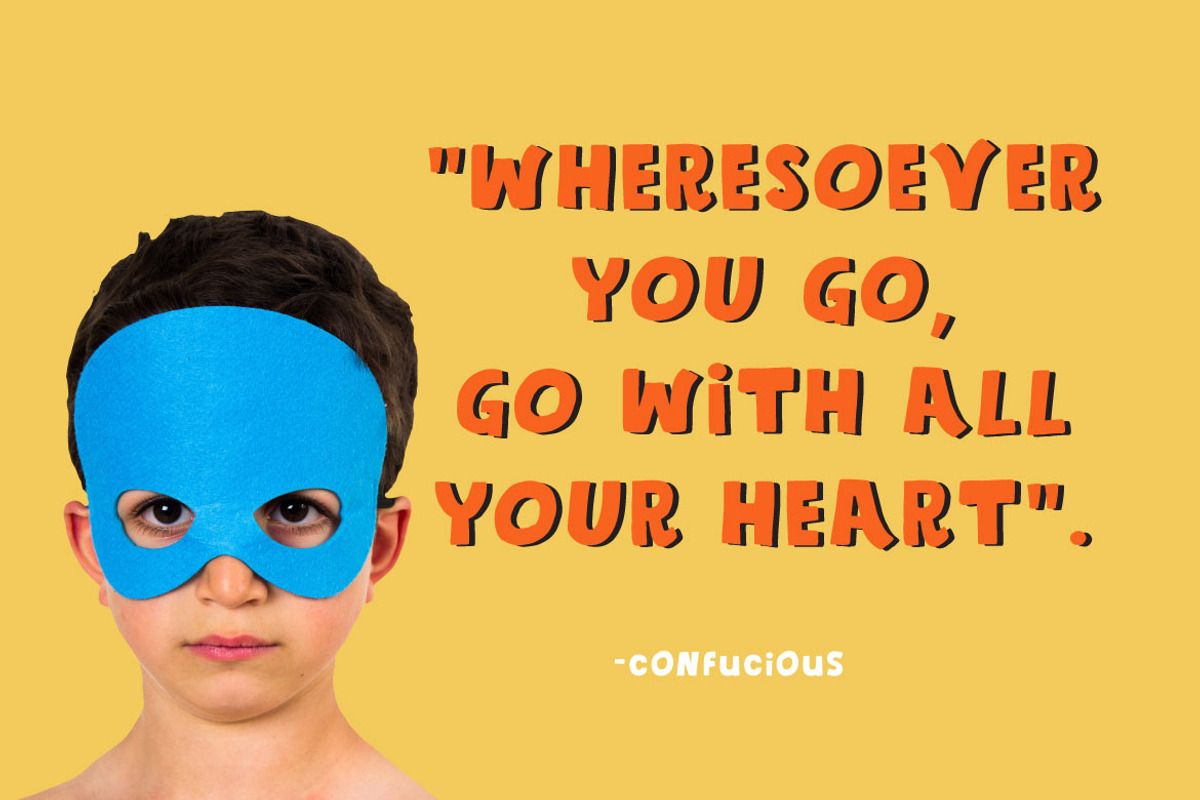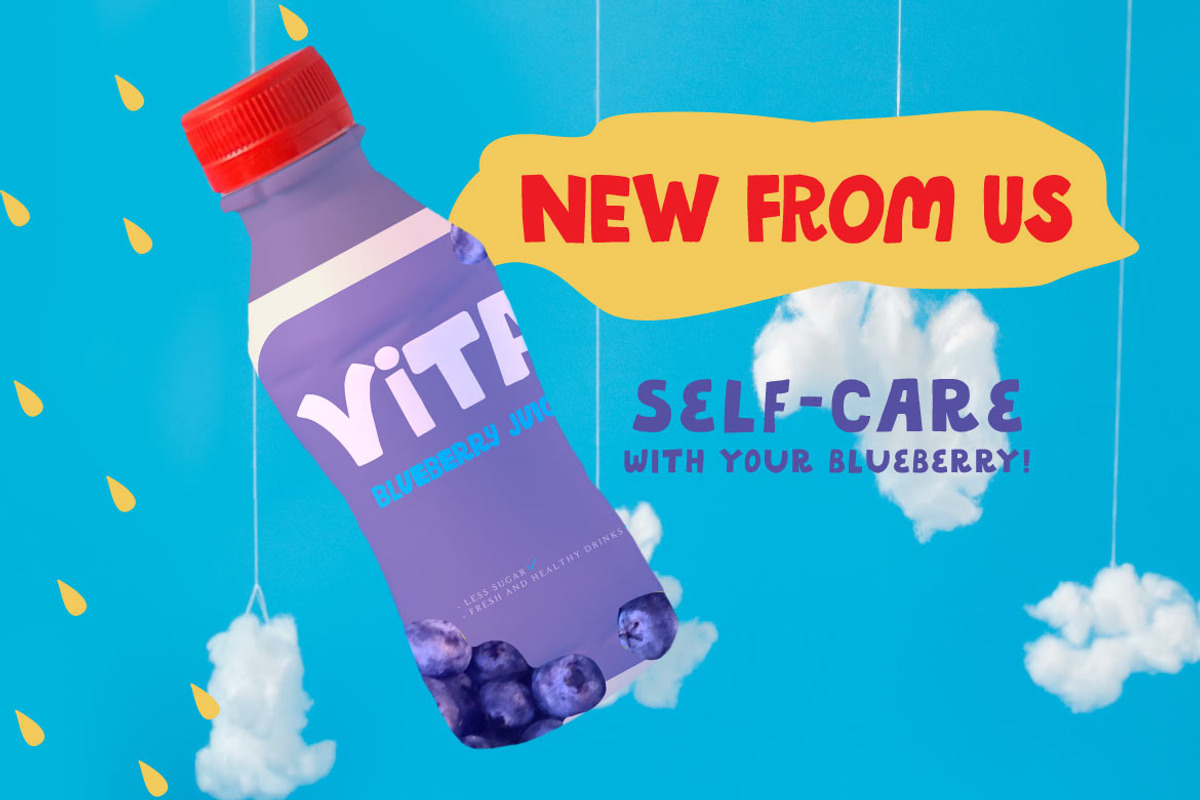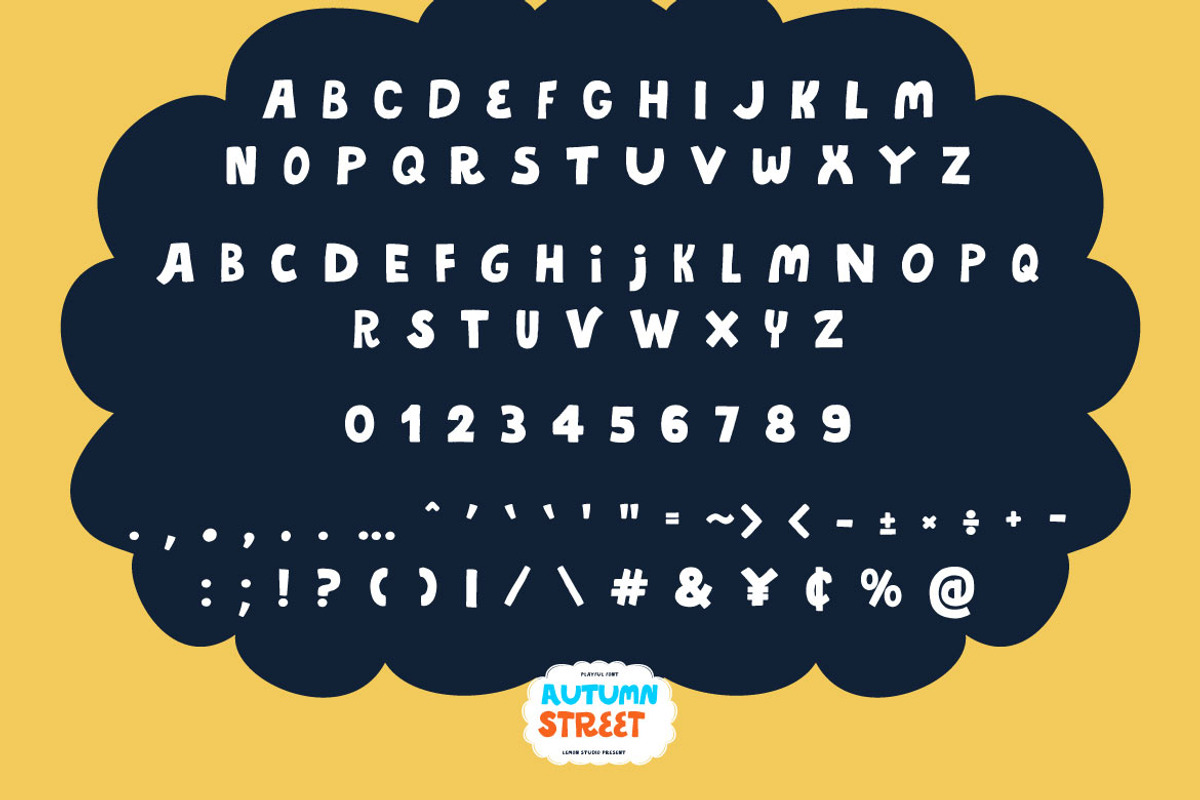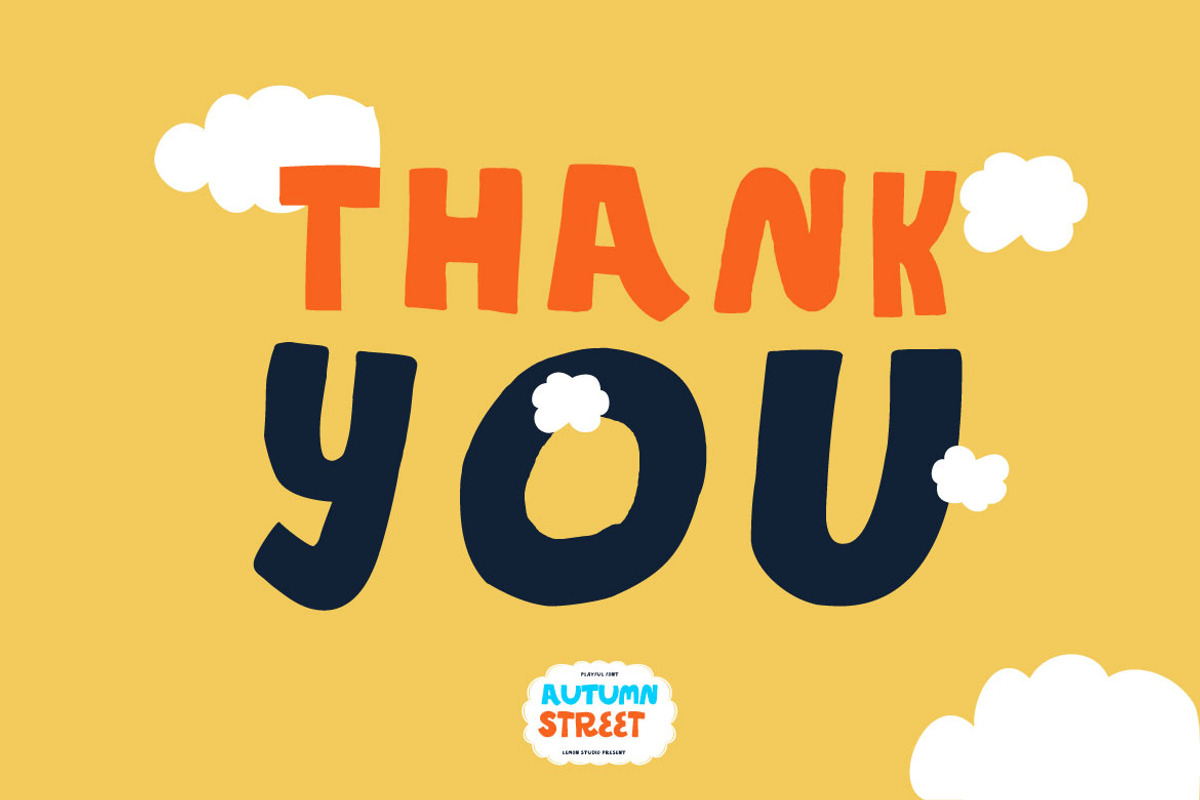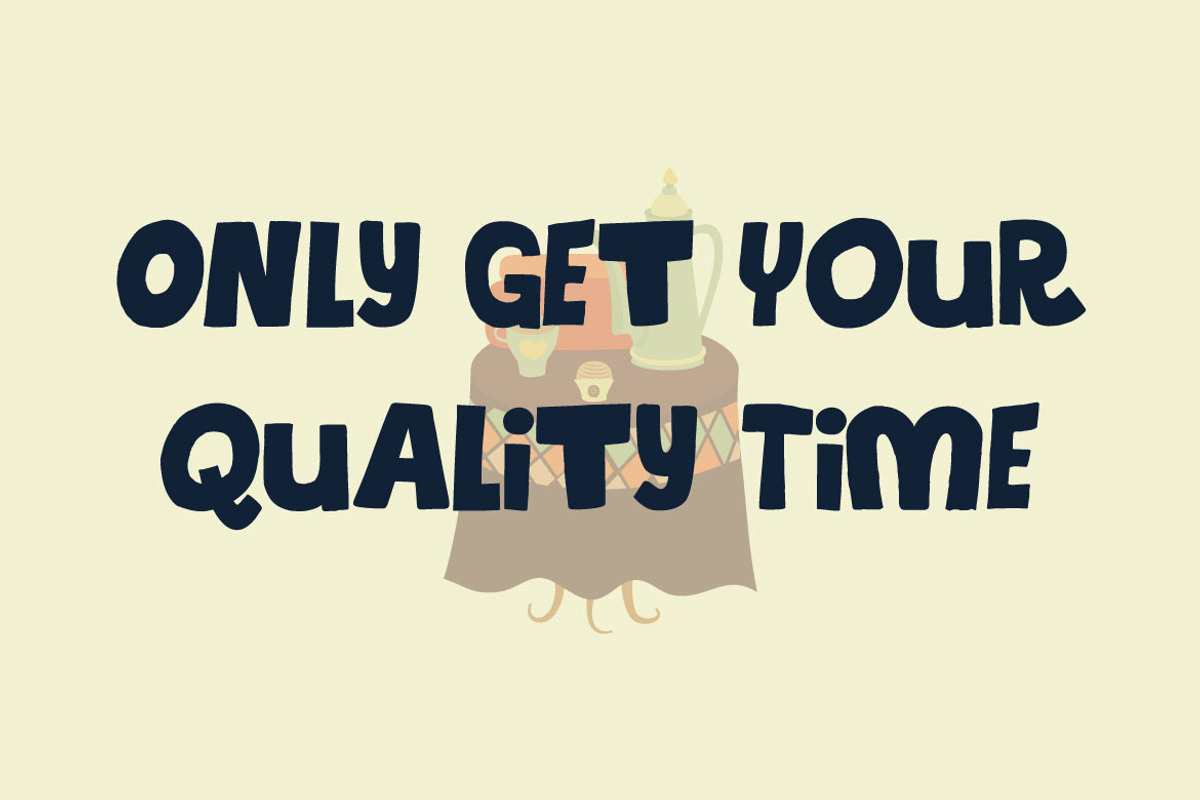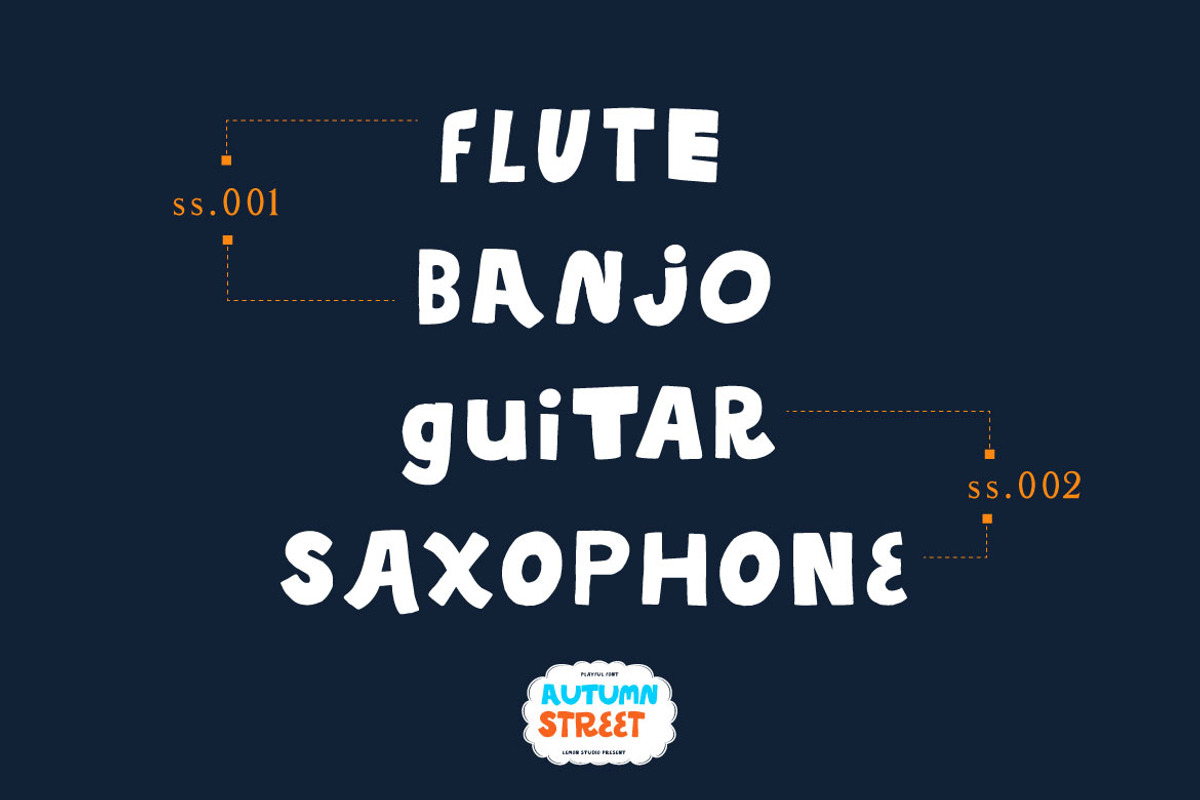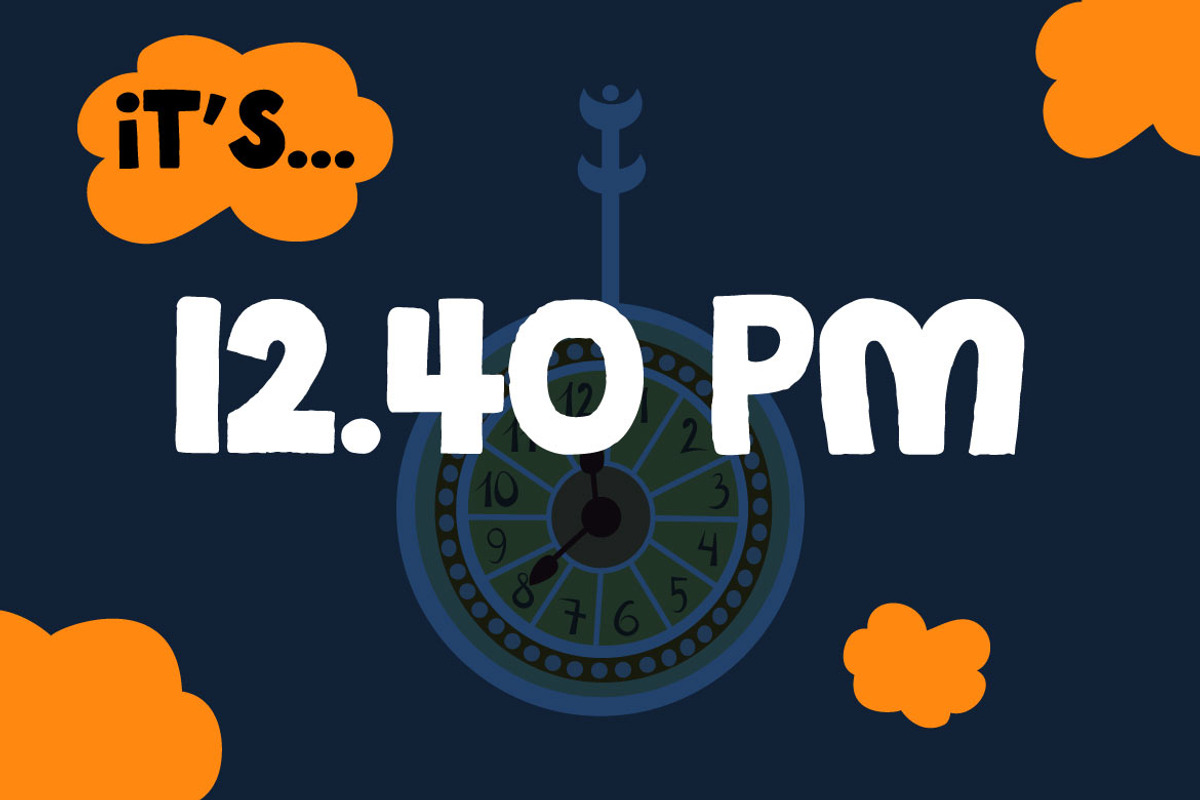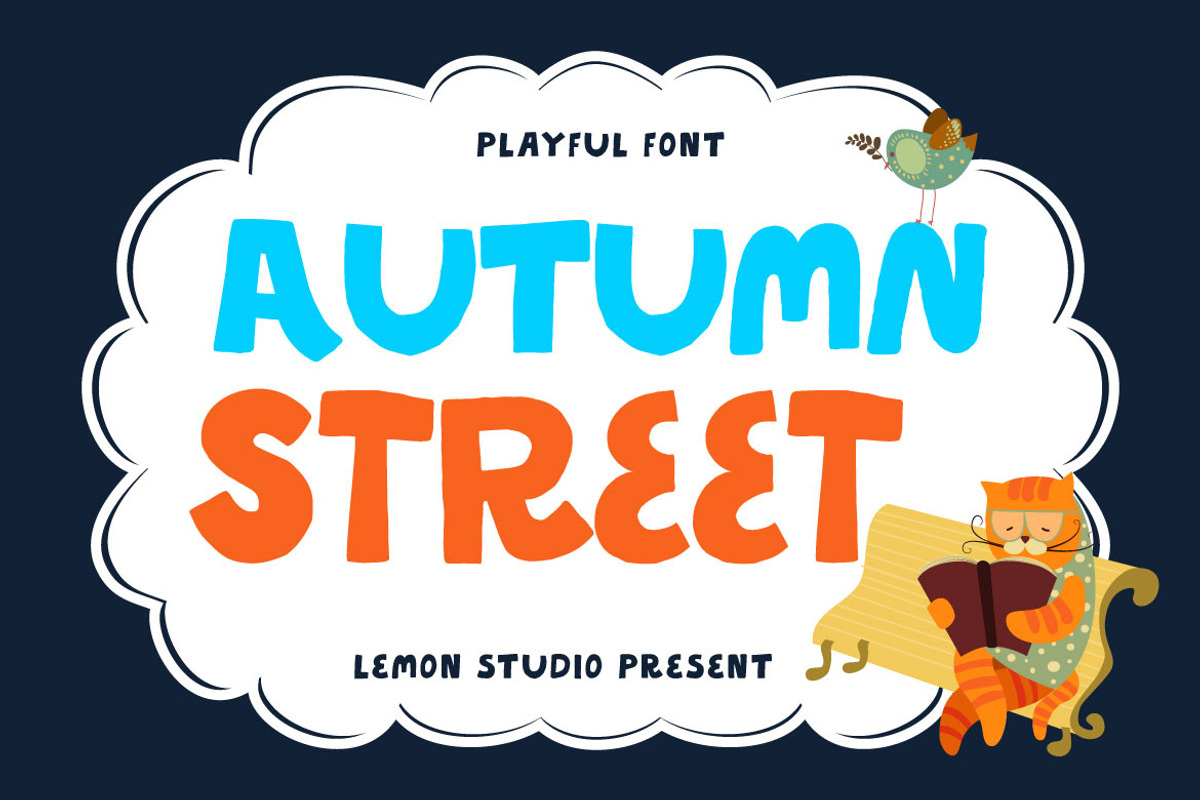
Autumn Street - Cute Sans
Autumn Street is a fun display font. Comes with a natural and unique touch. Yes, stick with the children's characters as they are and always fun and never boring, right?.
Autumn Street is perfect for a children's book cover design, birthday card, mockup design, pretty heading, or any project you need.
OPENTYPE FEATURES:
Stylistic Set